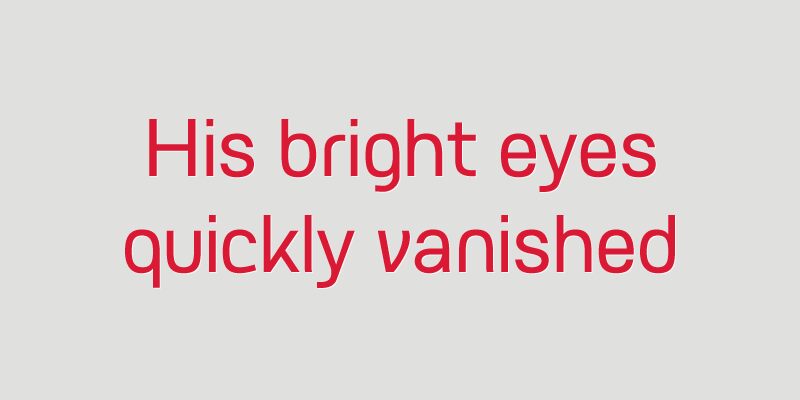
FV Granada
This is a contemporary neo-grotesque font that comes in three weights (of which the regular weight is free). It's named after the beautiful city I live for two years now. <br><br> You can buy the three weight package on my website or by using <a target="_blank" href="http://gum.co/zYMe">Gumroad (click)</a>